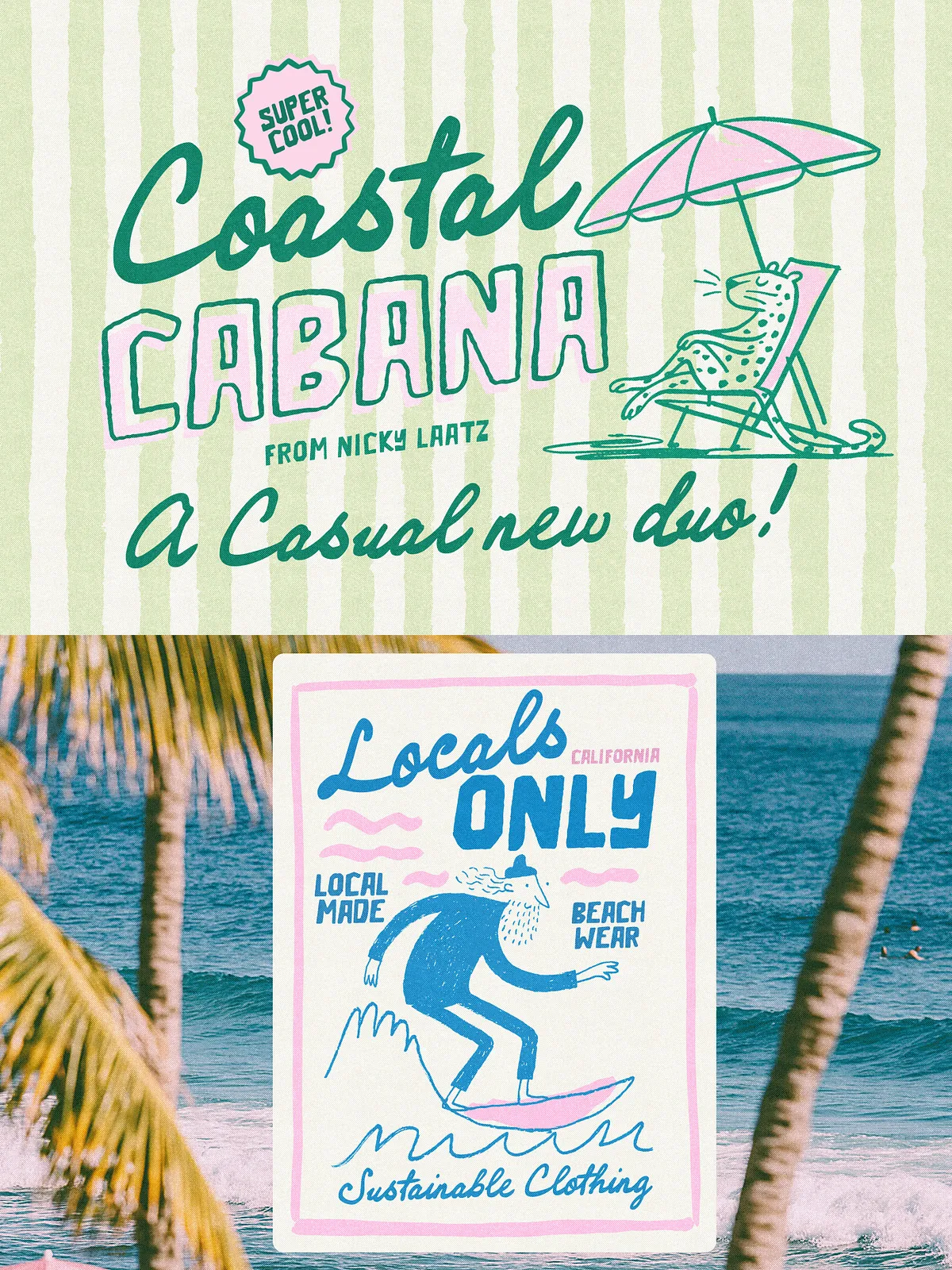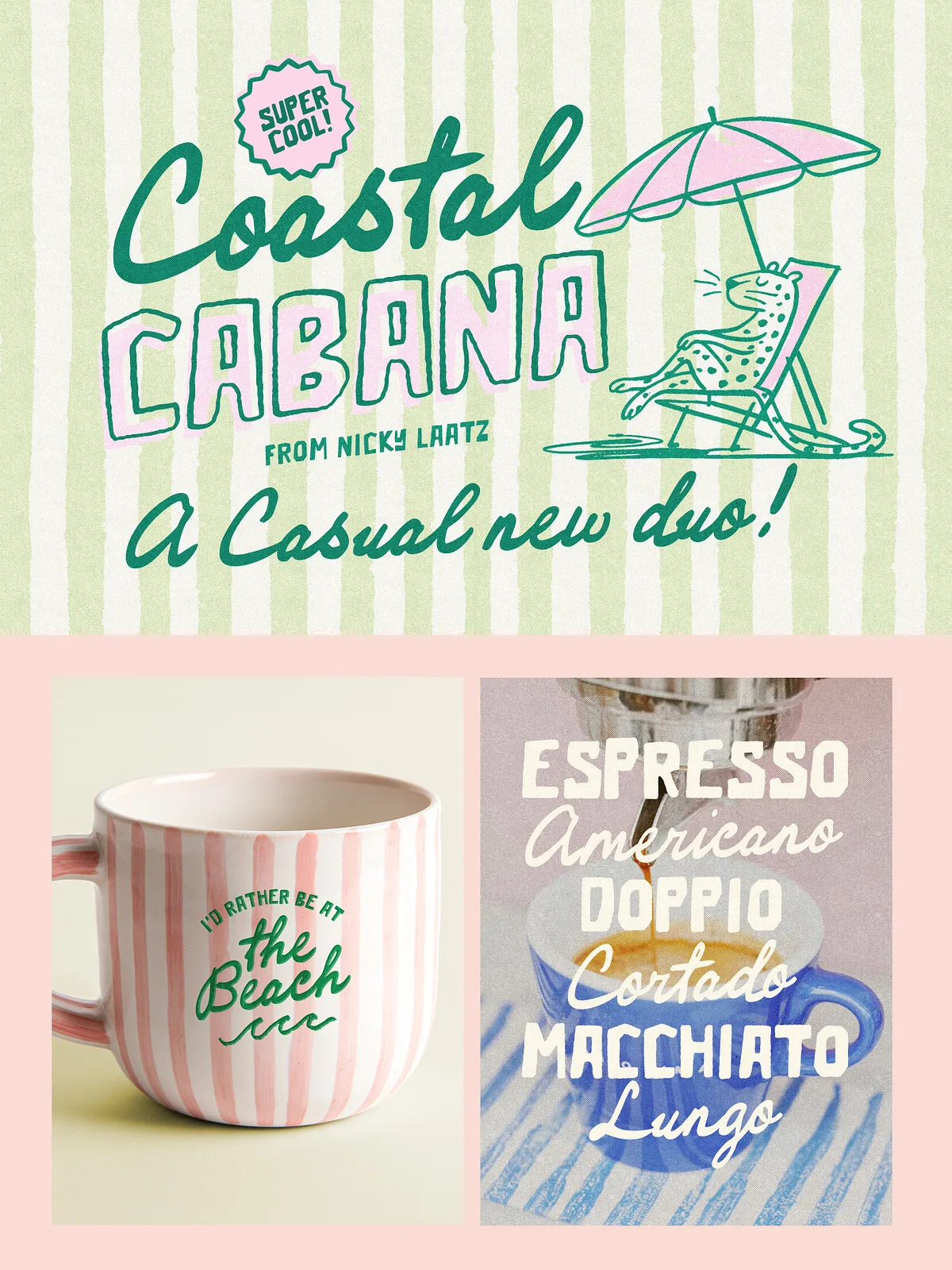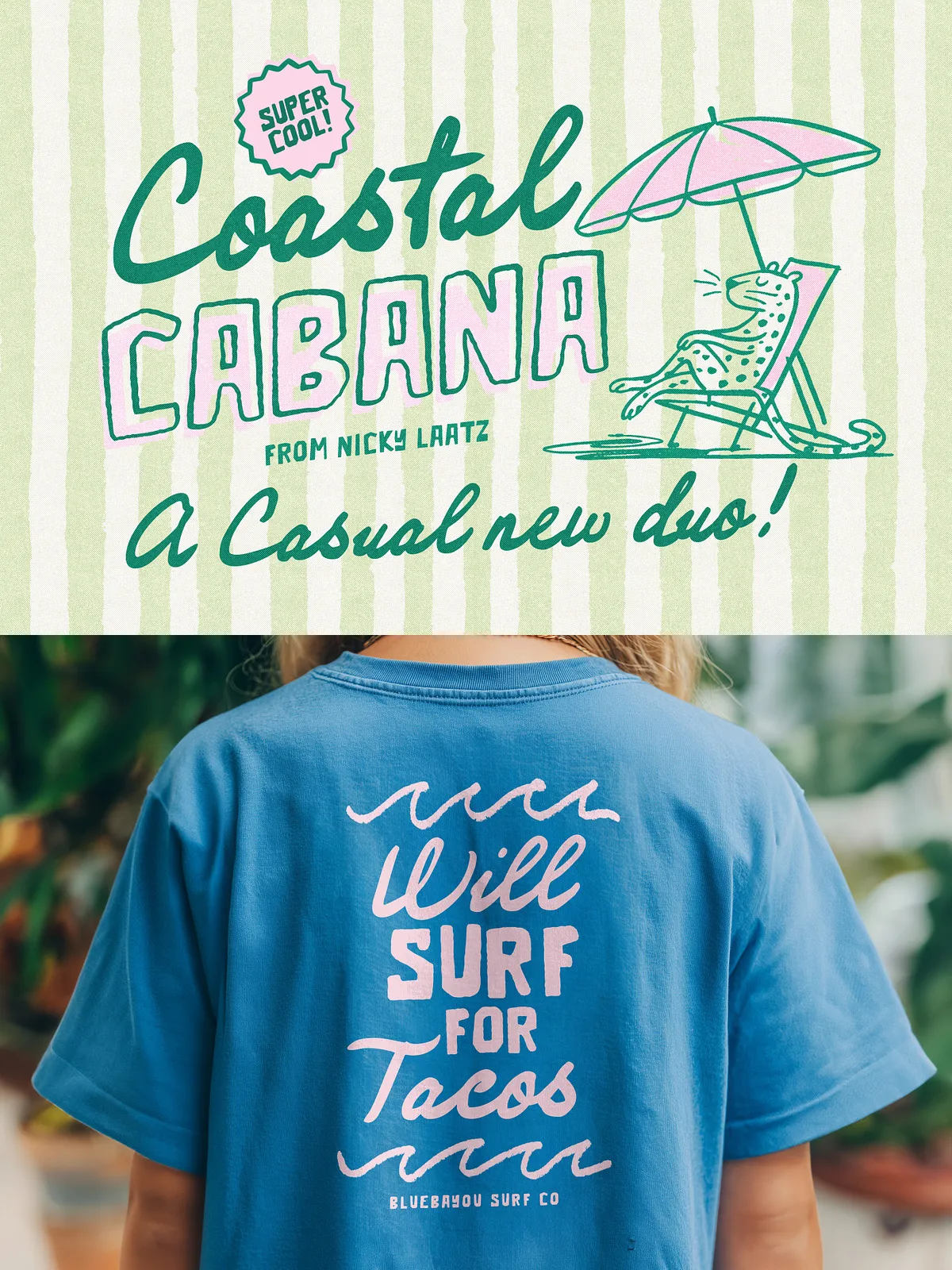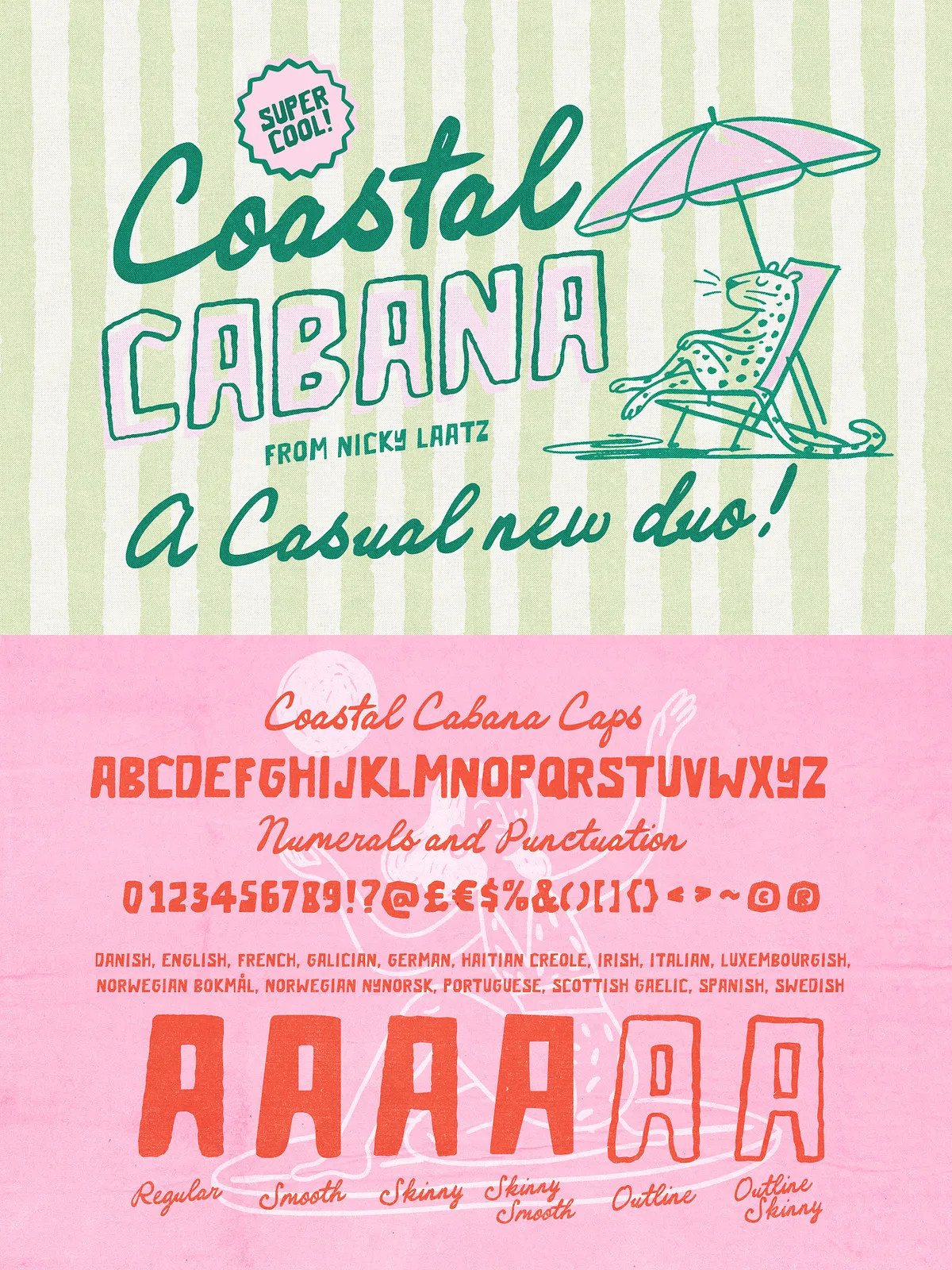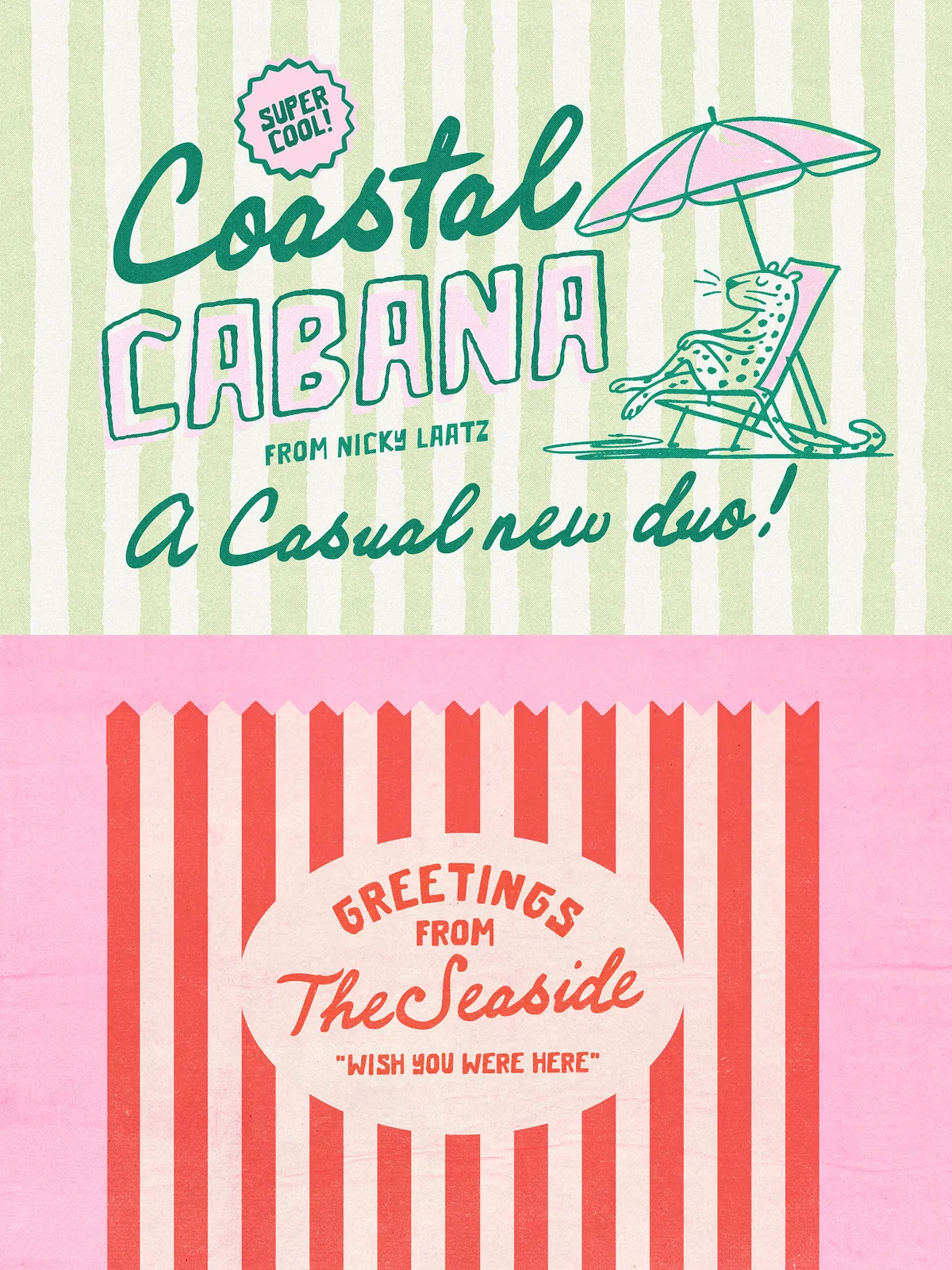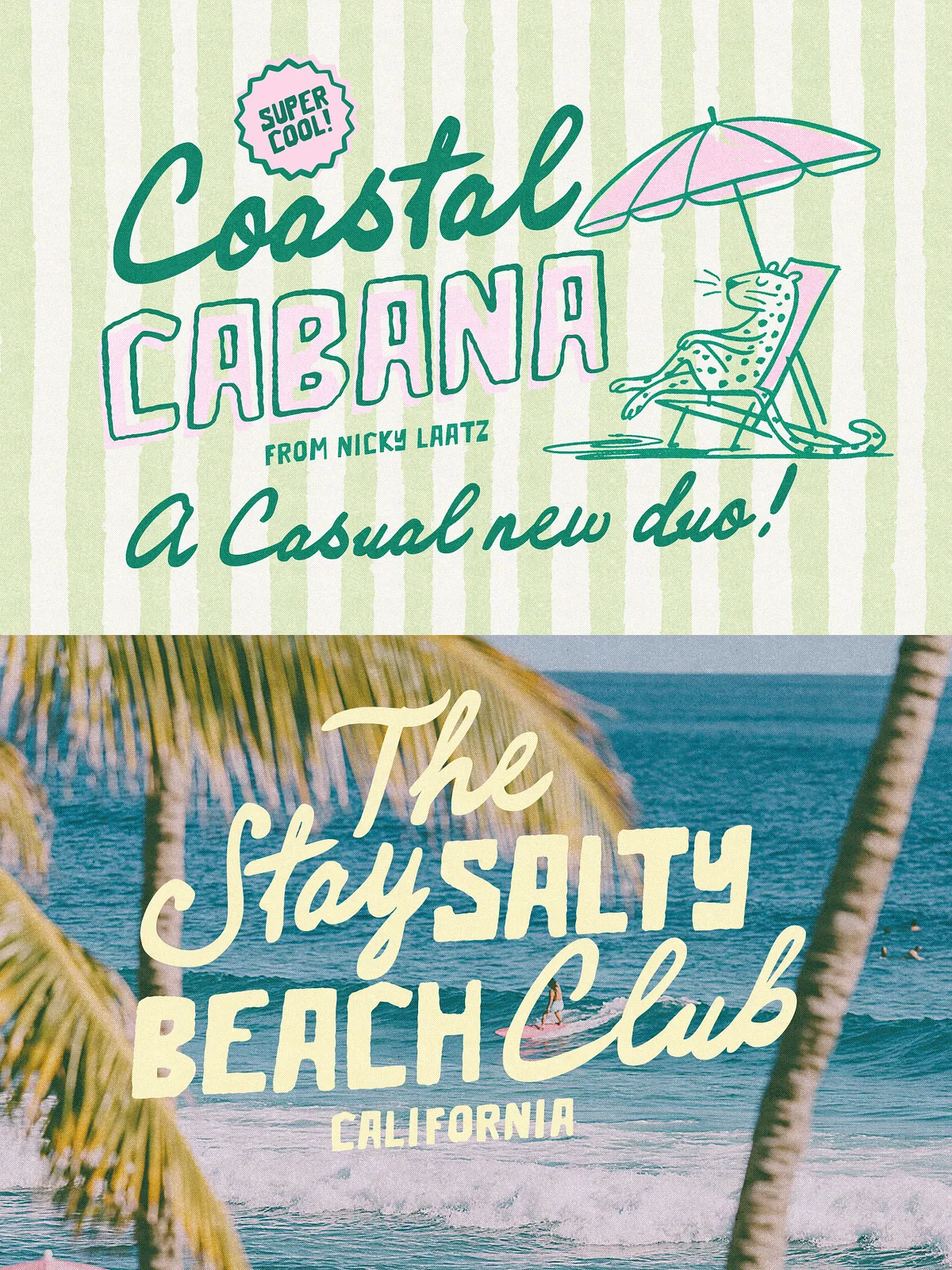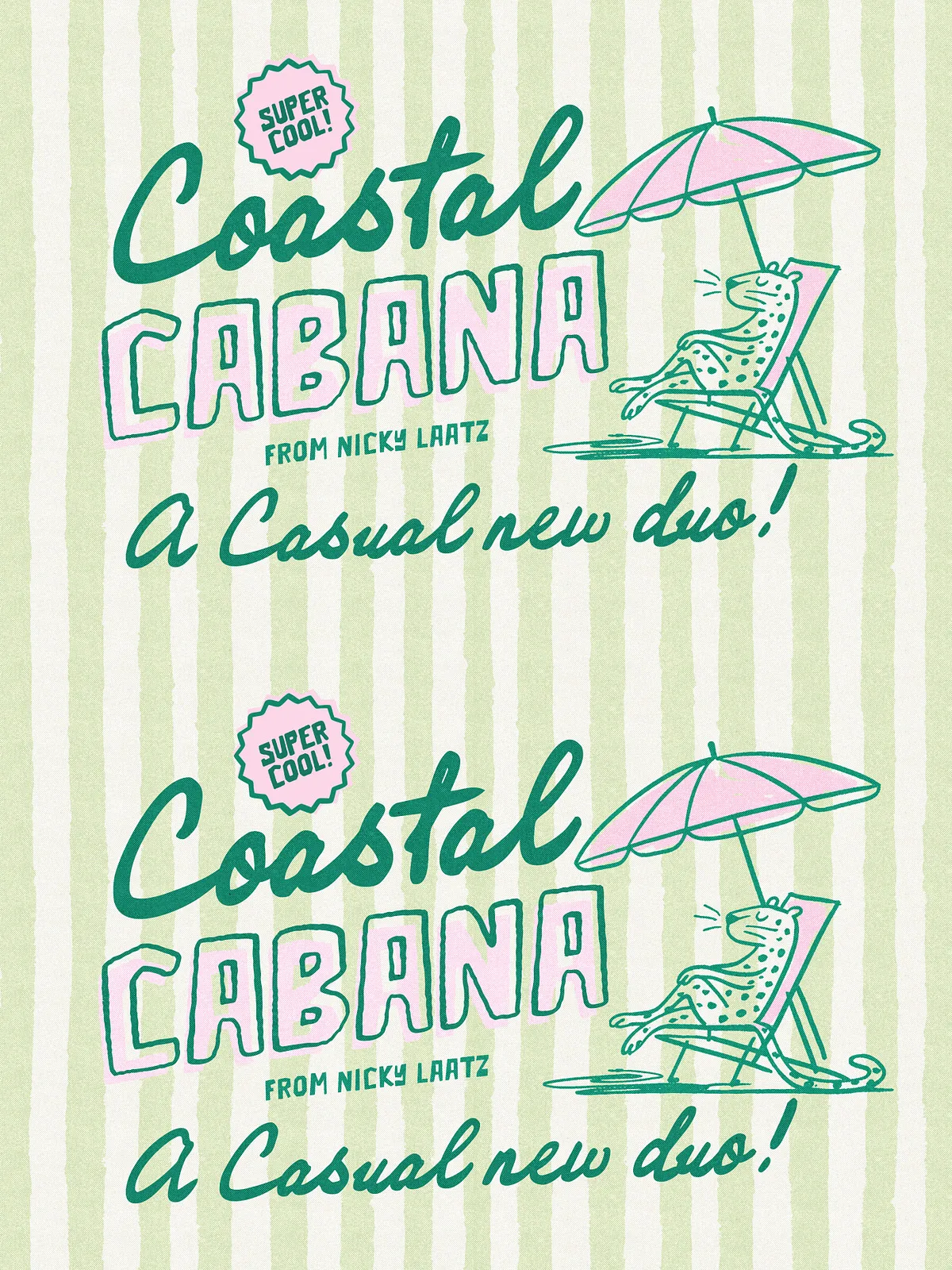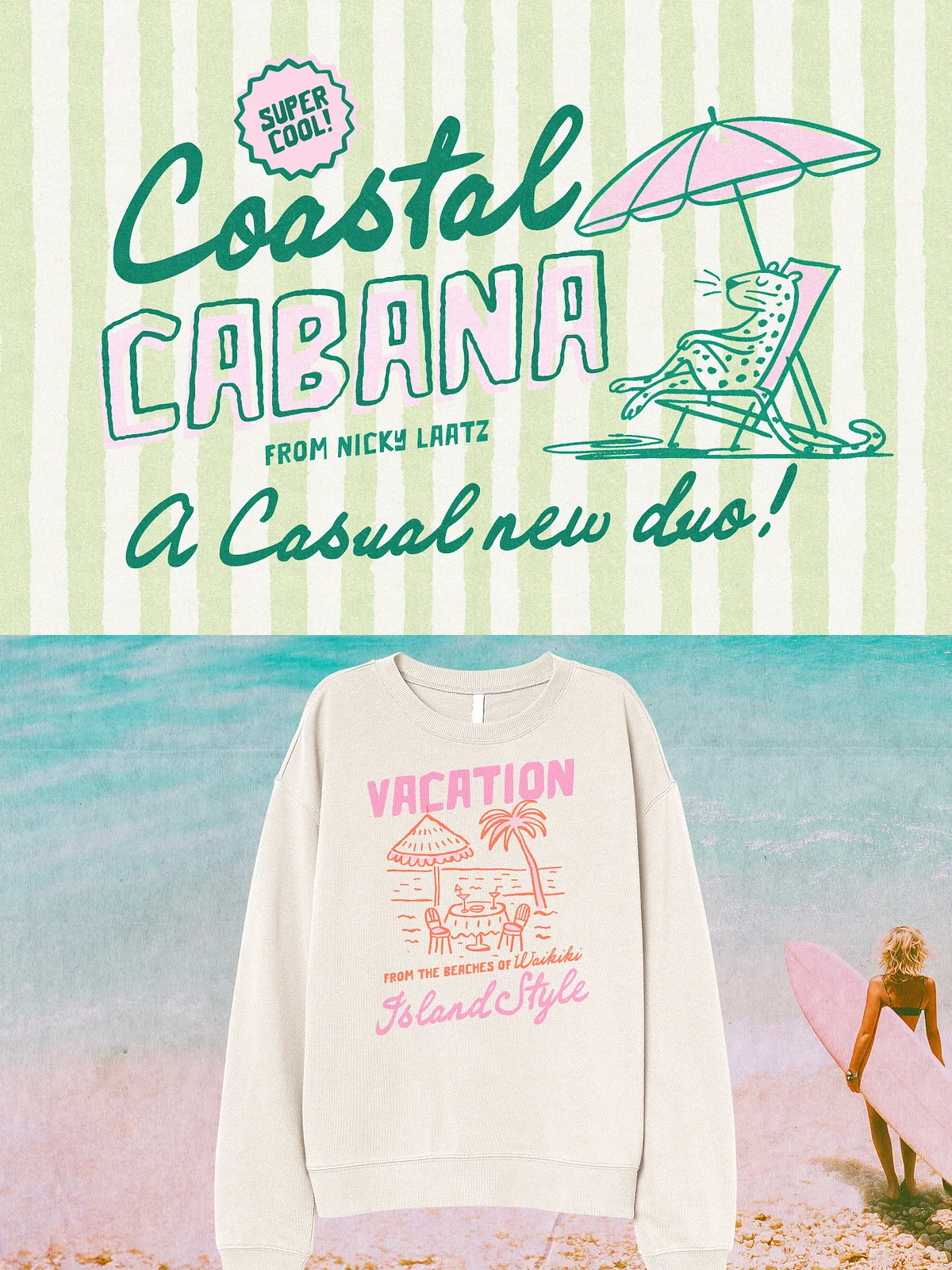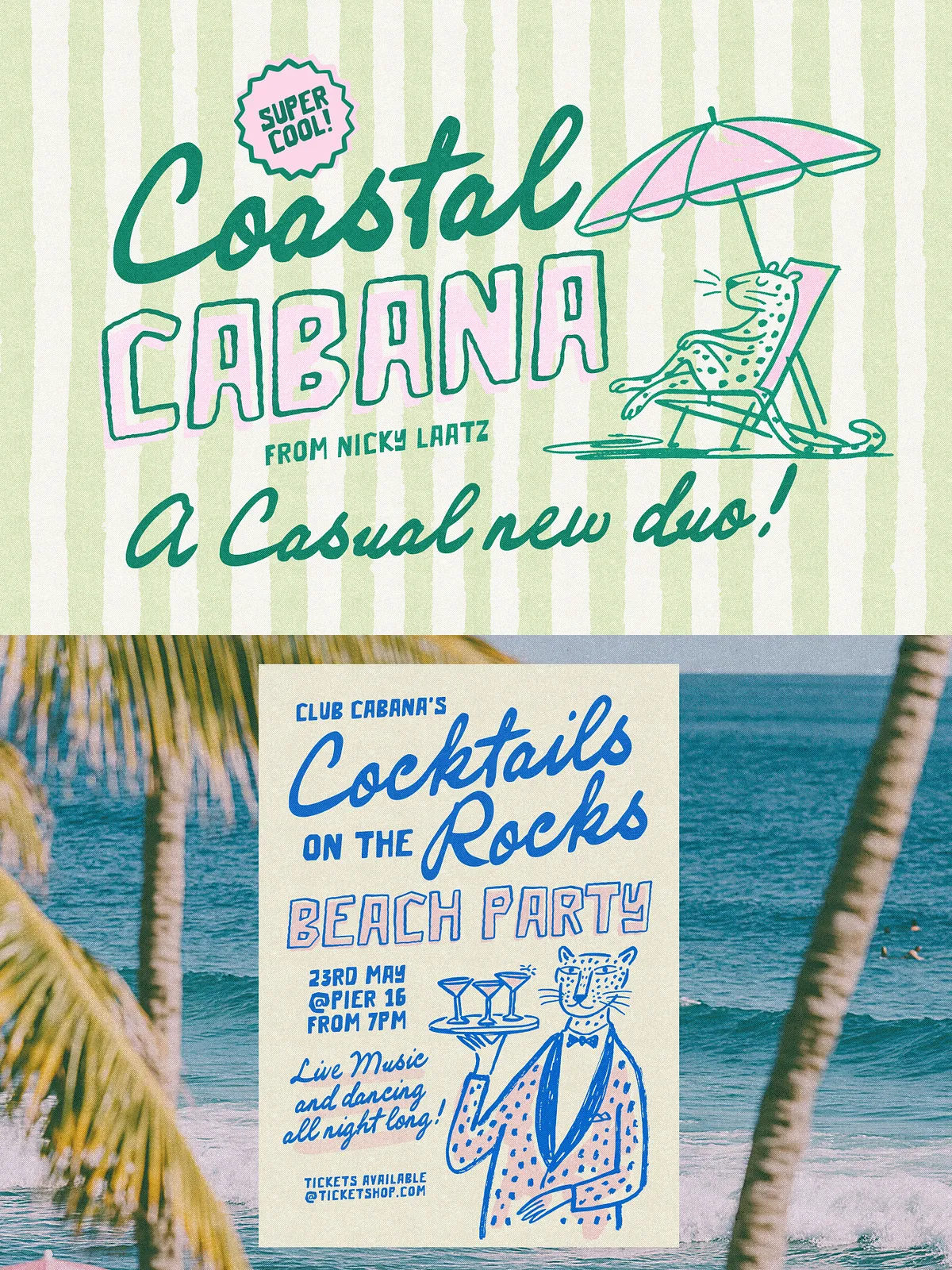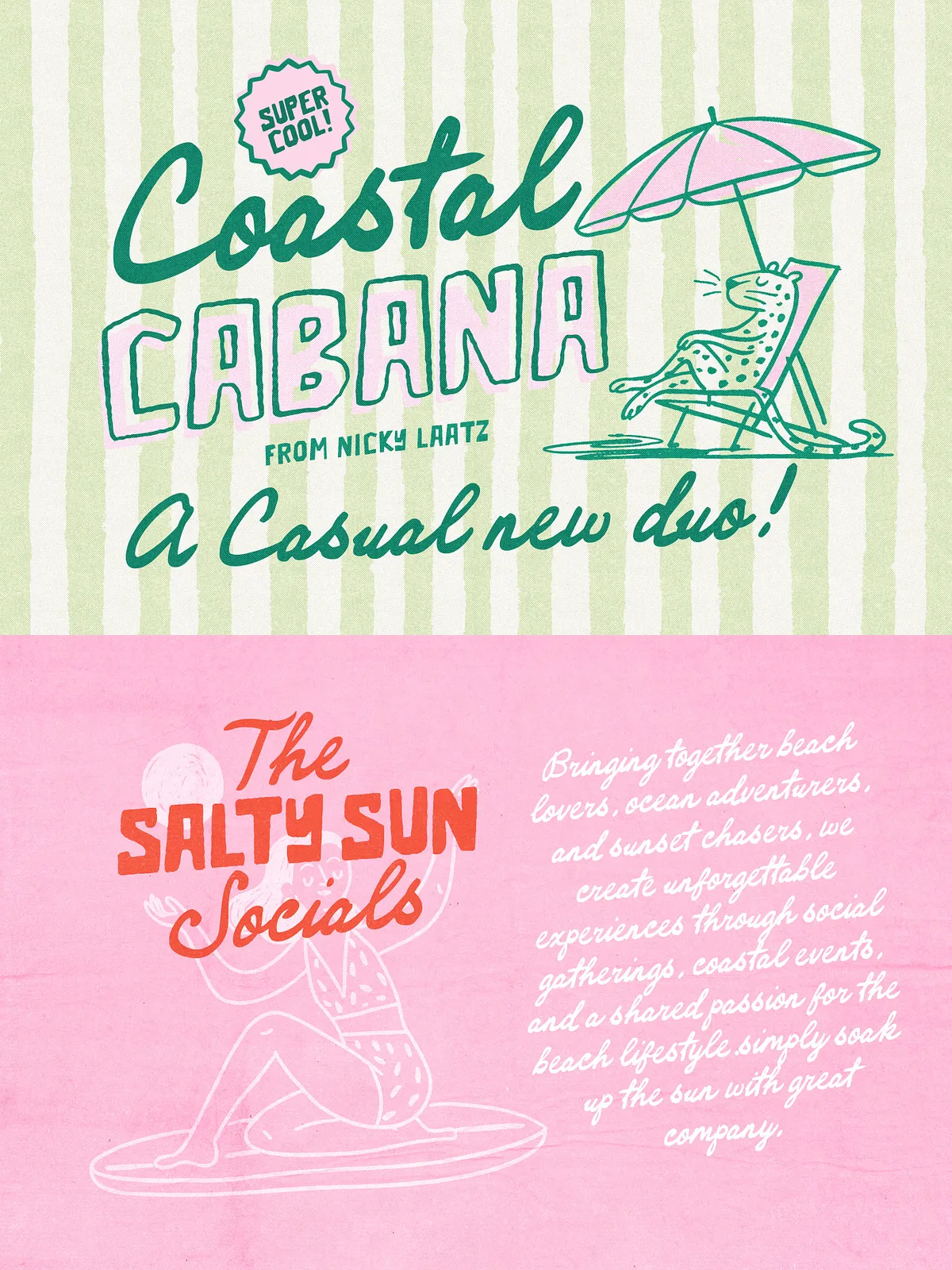
Coastal Cabana Island Style Font Duo
Coastal Cabana delivers an instant island mood in a single type system. This lively font duo combines a chunky, retro all-caps surfer sans with a natural, handwritten brush script to create a flexible toolkit for projects that need a laid-back, vacation-ready voice. Use Coastal Cabana to energize posters, merchandise, wedding invites, packaging, and social graphics with a clear seaside personality.
Design & Personality
Surfer Sans — Bold, Retro, All-Caps
The sans component champions vintage surf signage with chunky letterforms and confident presence. All-caps design makes headlines and logos read loud and unmistakable. Subtle retro proportions evoke hand-cut vinyl signage and old-school surf shop signage while keeping modern spacing and clean outlines for crisp reproduction in print and digital formats.
Handwritten Brush Script — Natural and Effortless
The script counterpart offers an easy-going brush stroke that complements the bold sans. Slightly varied slants and weights across script variants create organic motion and authentic hand-crafted feel. Use the script for subheadlines, taglines, product names, or anywhere a softer, more personal voice will connect with your audience.
• Two-style duo: chunky retro all-caps sans + relaxed handwritten brush script.
• Multiple script variants with subtle changes in slant and weight to suit different layouts.
• Sans variants include smooth and outline versions for decorative and layered effects.
• Optimized for display use: bold headlines, merchandise, packaging, and large-format prints.
Practical Applications
Coastal Cabana adapts to a wide range of seaside-inspired design tasks. Apply it to:
• Summer event posters and festival branding that demand instant seasonal recognition.
• Beach merchandise—t-shirts, tote bags, stickers—where bold display type drives sales.
• Coastal wedding invitations and save-the-dates, pairing the script with sans headlines for readable elegance.
• Tropical restaurant menus, café signage, and product packaging that benefit from a handcrafted look.
• Social media graphics and banner ads that need quick readability and strong personality.
Variants, Weights & Styling Tips
Match variants to background and contrast
Choose lighter script variants on dark backgrounds to maintain clarity, and heavier script weights on light backgrounds for stronger presence. The sans smooth version works well for solid brand marks, while outline versions create layered visual interest when combined with color fills or textures.
Combining the duo
Let the sans carry headlines and short block statements; let the script provide warmth and personality in subheads or callouts. Keep body copy in a neutral sans or serif to avoid visual competition and protect legibility in long reads.